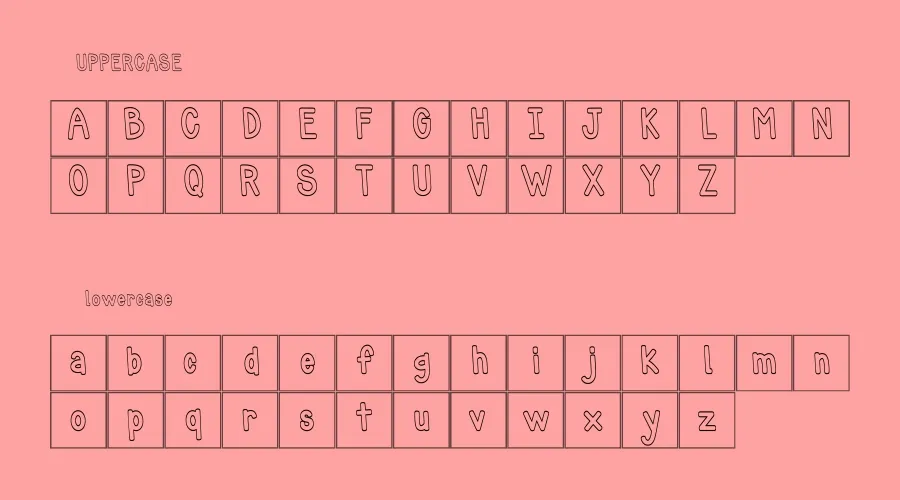
About LD Sleek Font
In this article, we shall present to you a new good-looking, and unique texture named LD Sleek Font. This font was developed by Barry Schwartz and looks like the decorative texture family. This font has a neat and stunning texture look appearance for visitors.
You can utilize the LD sleek Font with jungle land font and make modern projects. Your project can advance when a typeface has distinctive properties. It offers amazing qualities that many other types lack. It is ideal for any graphic design projects you may be working on.